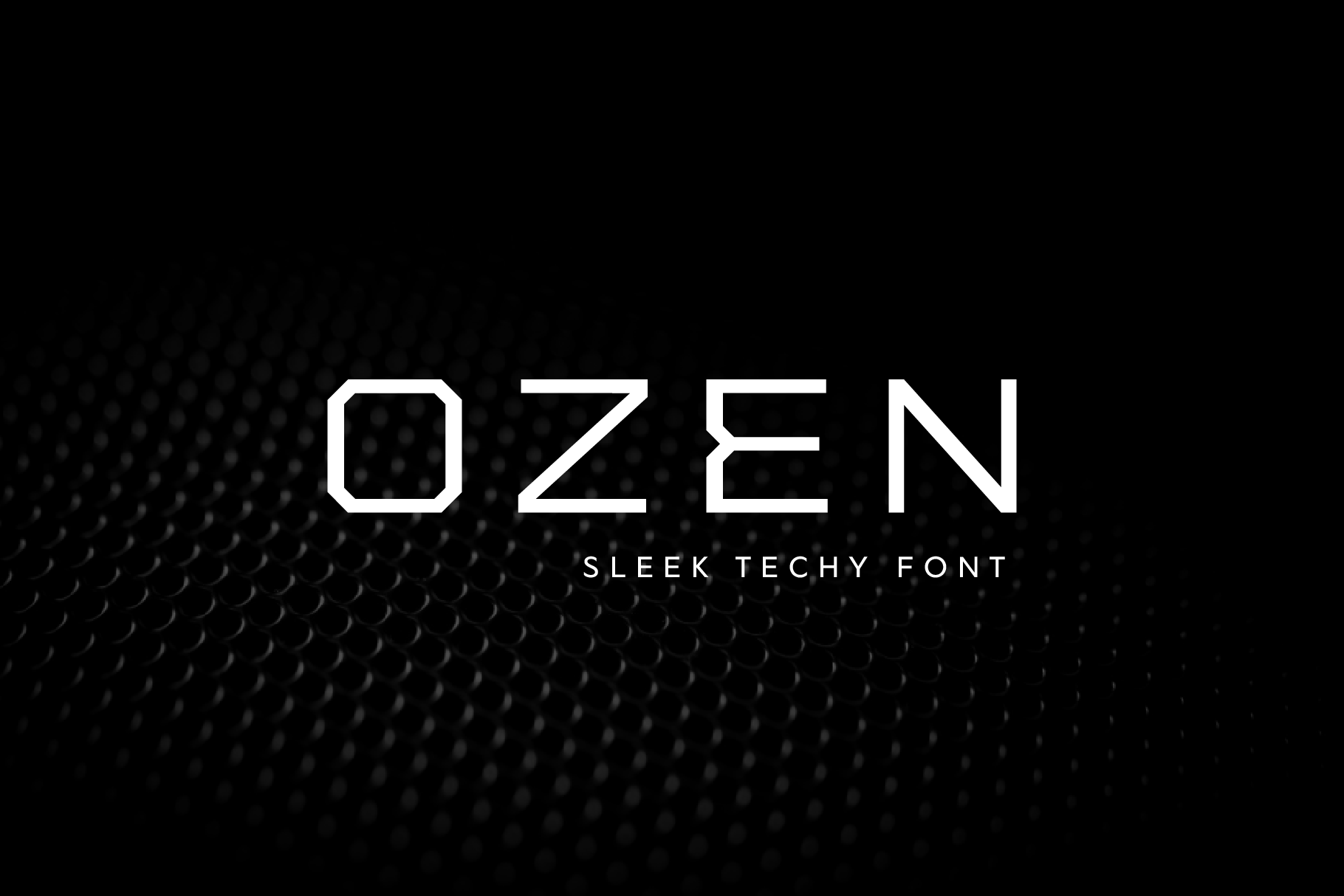
Ozen Futuristic Clean Sci-fi Font
Ozen is a sleek and futuristic font that embodies the essence of clean, sci-fi aesthetics. This clean sci-fi font has meticulously crafted letterforms that exude technological sophistication, making it the perfect choice for projects requiring a modern and forward-thinking vibe. Ozen font is the go-to choice for designers seeking a font that effortlessly blends form and function in futuristic design.